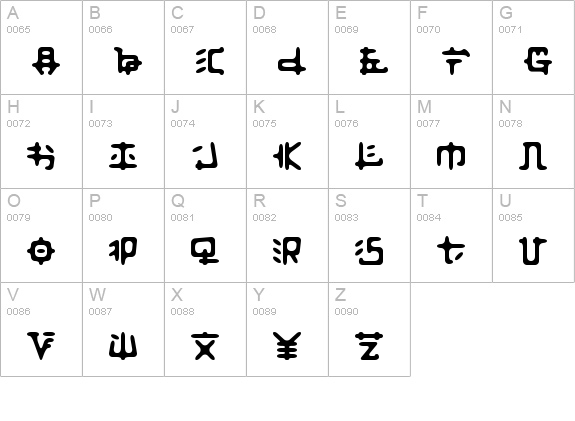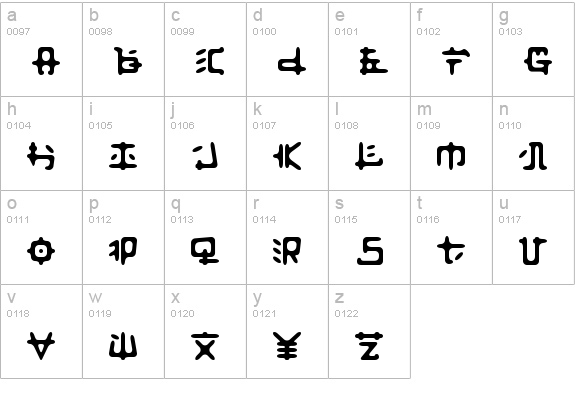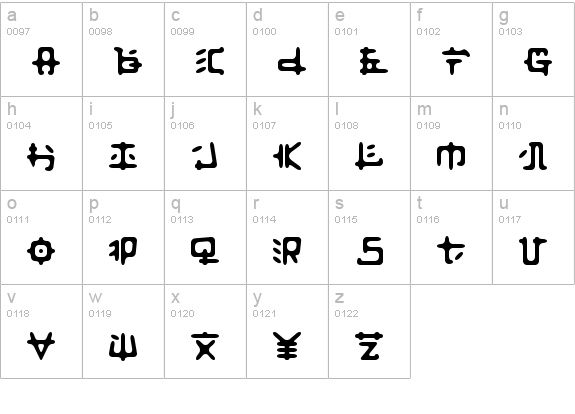
Anyong Font Details
Anyong font is a beautifully crafted typeface that exudes elegance and sophistication. With its clean lines and stylish curves, this font is perfect for a wide range of design projects, from branding to editorial design. The sleek and modern look of Anyong font makes it a versatile choice for both digital and print designs. One of the best things about Anyong font is that it is completely free to download. You can easily access this stunning font at FontsMarket.com, where you can download it and start using it in your projects right away. Whether you're a designer looking to add a touch of class to your work or a business owner in need of a stylish font for your branding, Anyong font is the perfect choice. Don't miss out on the opportunity to enhance your designs with this amazing free font.